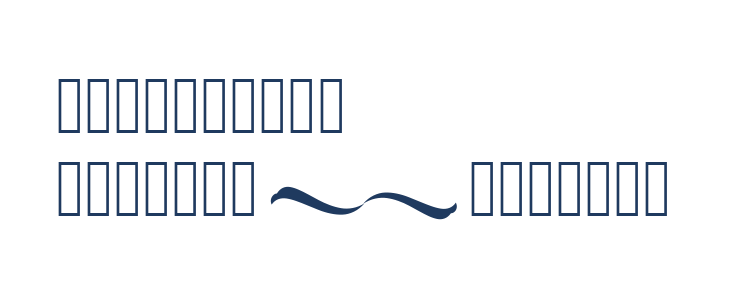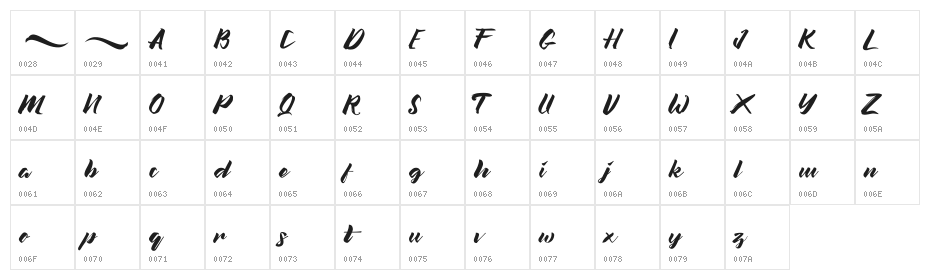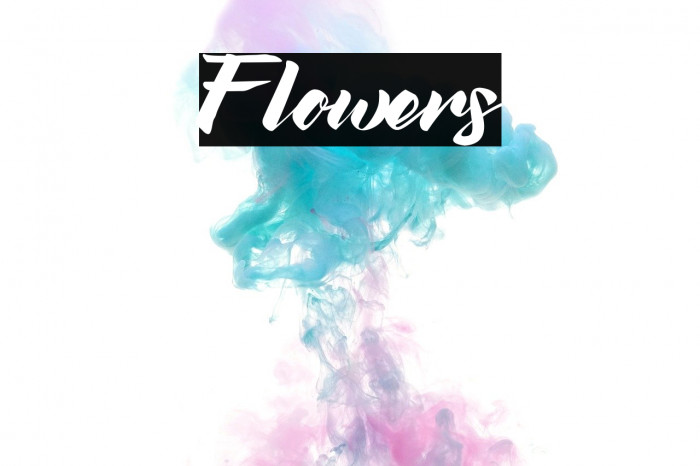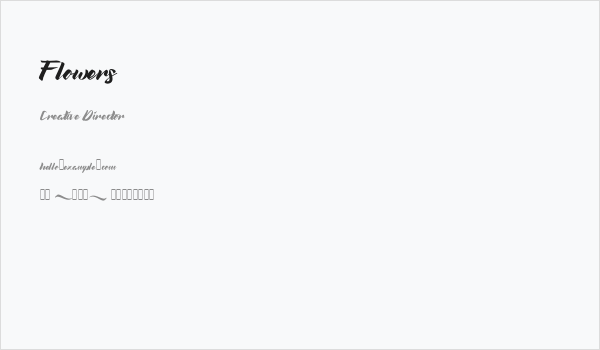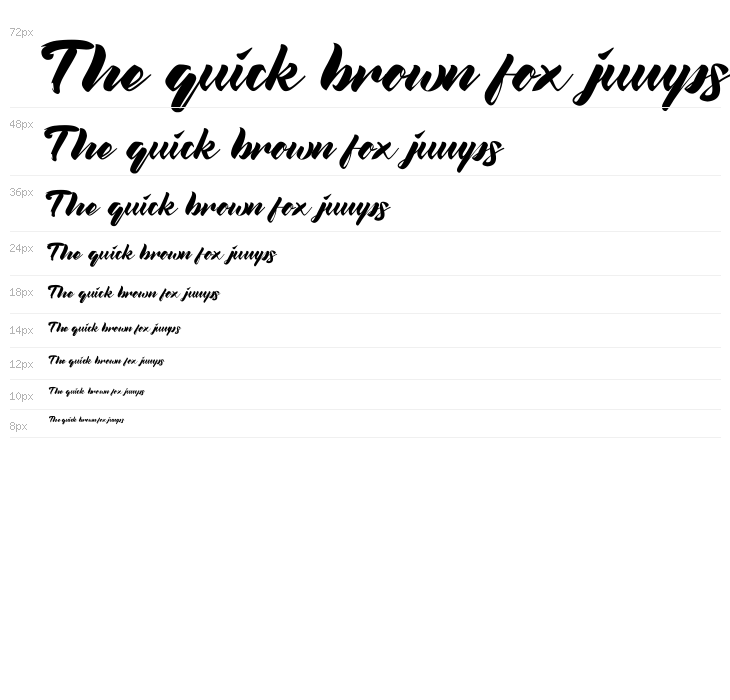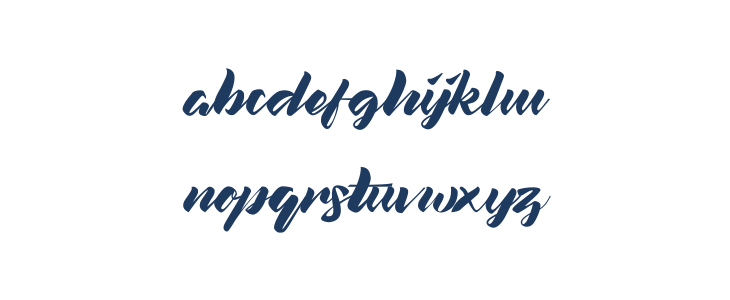
Flowers Font
Flowers Description
This font features a bold, flowing script style that exudes elegance and sophistication. The characters are crafted with sweeping curves and a dynamic, hand-drawn appearance, reminiscent of calligraphy. The uppercase letters are particularly striking, with dramatic flourishes that add a sense of movement and grace. The lowercase letters maintain a consistent style, offering a harmonious blend with the uppercase. This font is ideal for creating eye-catching designs that require a touch of class and artistry. Its bold weight and high contrast between thick and thin strokes make it stand out, while the spacing between characters is tight, enhancing its cohesive look.